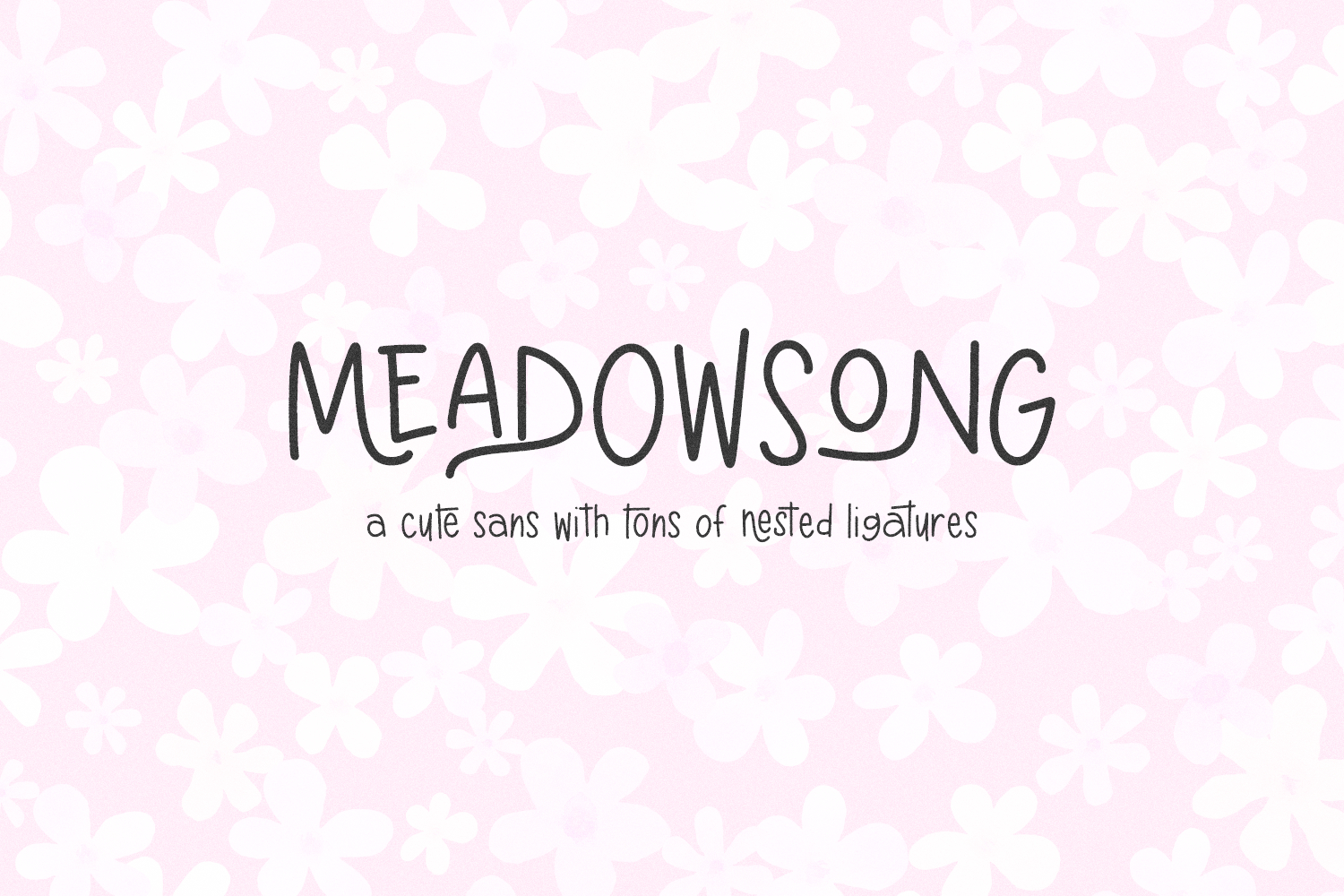
Meadowsong Display Font
Meadowsong is an interlocking sans font. The playful ligatures in Meadowsong lend themselves to a whimsical & irregular font, while still being neat & tidy! Because of this, it would make a great addition to a teacher’s font collection, children’s books, or classroom decor. Meadowsong Sans is also perfect for logos & branding, greeting cards, painted banners, digital planners, note-taking apps, Canva, Cricut projects, Silhouette projects, designing SVG files, laser cutting projects, & more.
Meadowsong includes:
- 185 ligatures